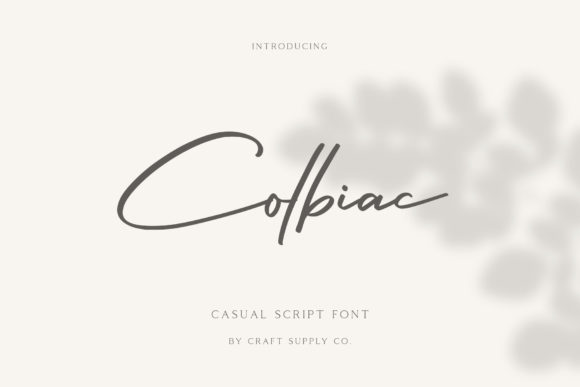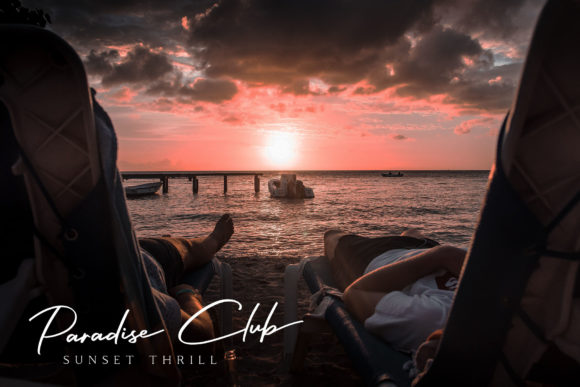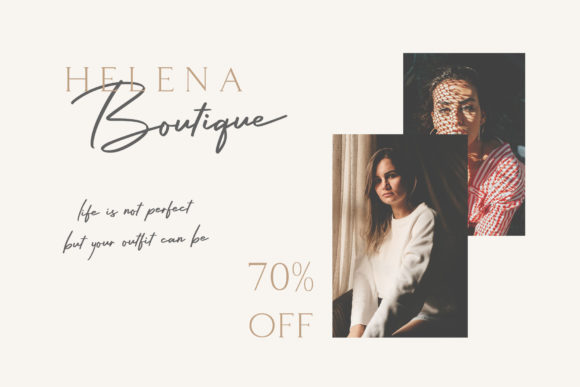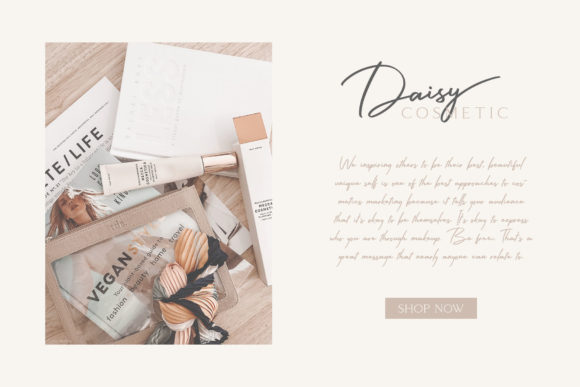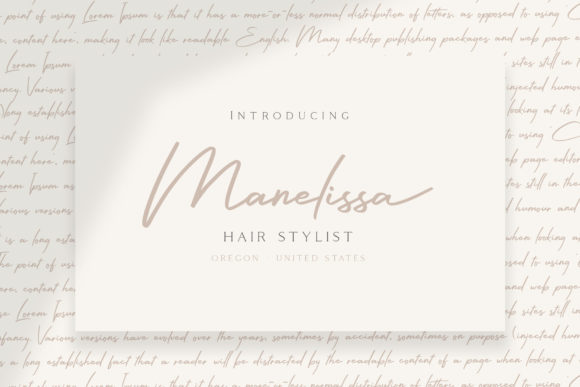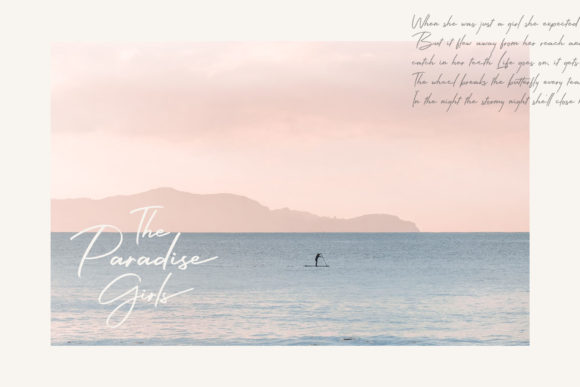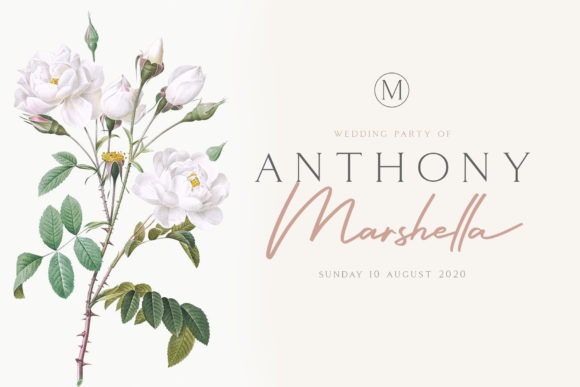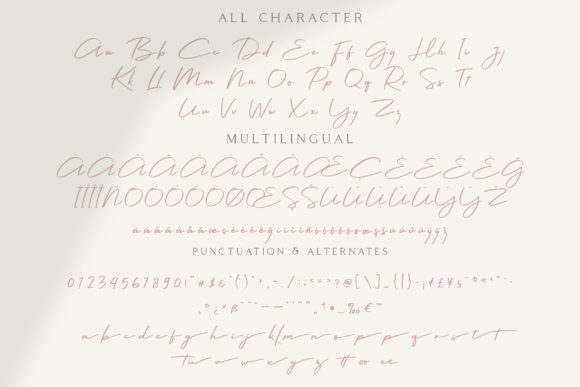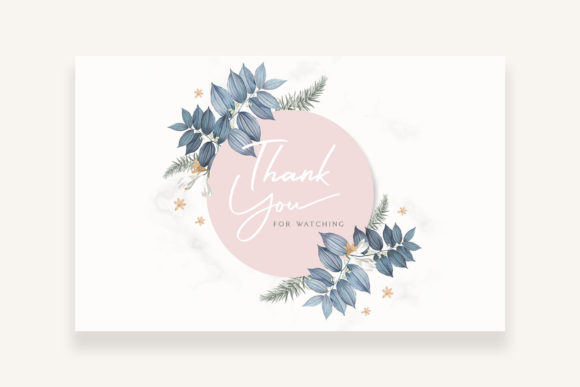
HomeScript FontsColbiac Font Script Fonts Colbiac Font FacebookXPinterestWhatsApp Colbiac Font Poster 2 Colbiac Font Poster 3 Colbiac Font Poster 4 Colbiac Font Poster 5 Colbiac Font Poster 6 Colbiac Font Poster 7 Colbiac Font Poster 8 Colbiac Font Poster 9 About Colbiac Font Colbiac is a stunning script, full of authenticity. Get inspired by its bold vibe! DOWNLOAD ON CREATIVE FABRICAThis font is sold and delivered by Creative Fabrica. Font Canyon may earn a commission if you buy through this link. People also explored Sasher Font Mathiles Font Paint Scenes X5 Bradley Font Just Kiding Font Brunzeld Font Antona Font Belvir Font Long Stay Font 401 0 TagsColbiac Font Previous articleRomance FontNext articleStarlight Font LEAVE A REPLY Cancel reply Comment: Please enter your comment! Name:* Please enter your name here Email:* You have entered an incorrect email address! Please enter your email address here Website: Save my name, email, and website in this browser for the next time I comment. Personal Use Free Vexler Slip Personal Use Free Read more about this font Kredit Personal Use Free Read more about this font Mowgli Personal Use Free Read more about this font Bukhari Script Personal Use Free Read more about this font BLOG To increase your work productivity, choose the most readable fonts. In today's fast-paced work environment, where digital communication and information consumption are integral to our daily routines, the choice of fonts can significantly impact... Top 10 Handwritten Fonts That Elevate Your Designs The 10 Best Handwriting Fonts to Add Personality to Your Designs Modern Sans-Serif Fonts That Brands Love in 2025